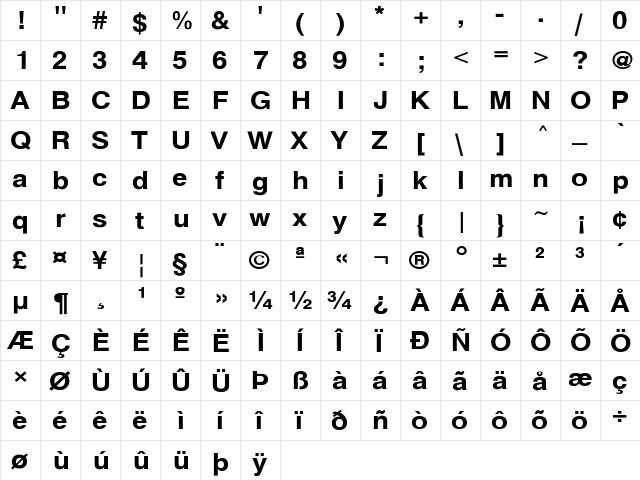
HelveticaExt-Bold Regular
Design Context for HelveticaExt-Bold Typeface
HelveticaExt-Bold offers clean, dependable letterforms without strong stylistic allegiance, making it a practical choice for designers who need flexibility. The heavy weight commands attention and anchors typographic hierarchies.